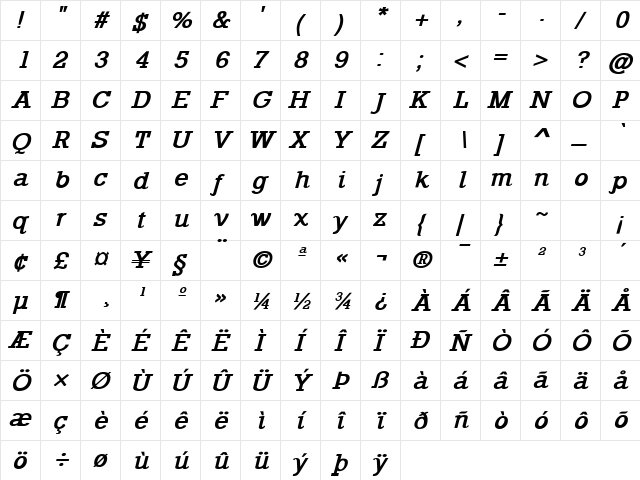
Rockford Bold-Italic
Design Context for Rockford Typeface
Rockford is a composed and adaptable typeface that performs quietly and consistently across a wide range of design contexts. The dynamic lean of this cut emphasises speed and emphasis in any layout. Its bold stroke weight gives it real presence on the page.
Pro Tip: Try Rockford for annotation and caption copy alongside an upright companion — the contrast in angle creates a dynamic but ordered typographic system.